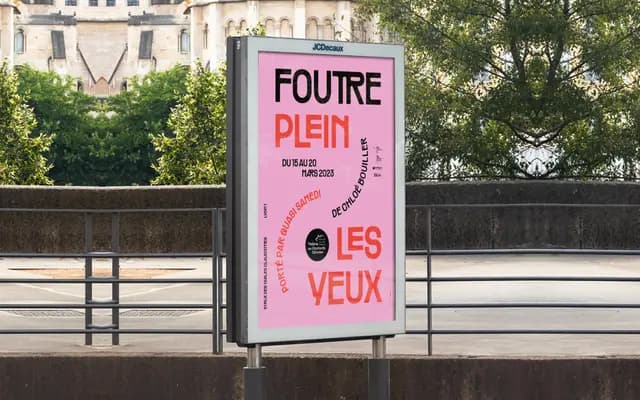
Räder
Pangram Foundry · Valerio Monopoli · 2022
A grotesque sans by Valerio Monopoli drawing from vintage road signage, with round inner counters that give it a printed, tactile quality beneath a modern industrial frame.
Designed by Valerio Monopoli and released in January 2022, Räder spans 16 styles across eight weights from Hairline to Bold, each with a true italic. Its round inner counters recall the craft of pre-neutral wayfinding systems, where legibility and visual character were not treated as opposing concerns. A variable font is included, and an extensive set of OpenType alternates covers letterforms such as A, K, R, W and Q, giving designers room to shift the register from restrained editorial to something more characterful.
Räder is an industrial grotesque with roots in vintage road signage, featuring round inner counters and a modern skeletal form. Pangram categorise it as brutalist and expressive, but its structure is fundamentally grotesque.